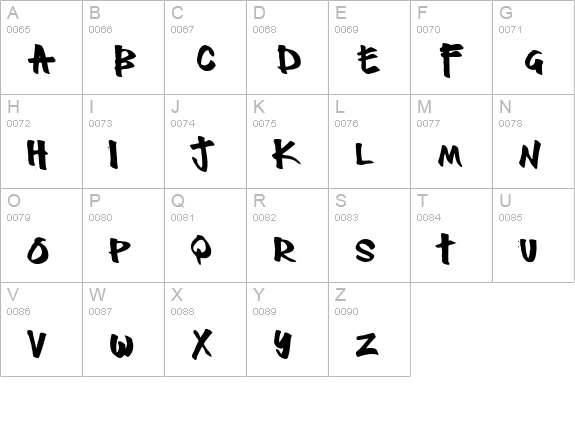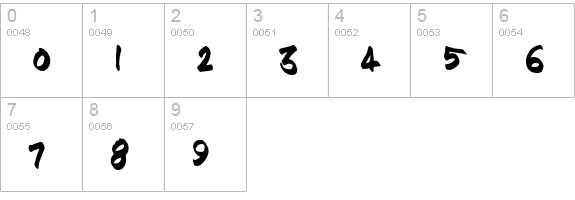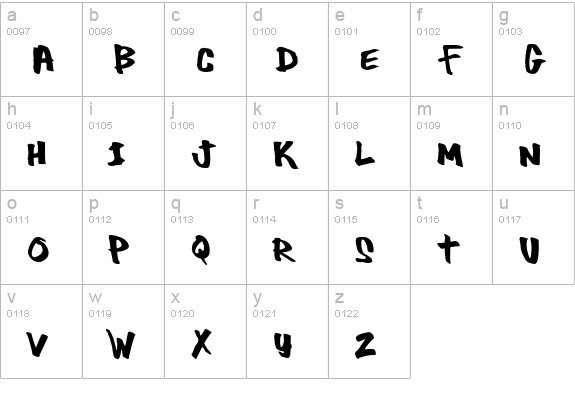
Thug Font is a bold and gritty typeface that exudes an edgy and rebellious vibe. With its sharp angles and jagged lines, this font is perfect for adding a touch of urban flair to your designs. Whether you're working on a streetwear brand, a music album cover, or a poster for a hip-hop event, Thug Font will make a powerful statement. What makes Thug Font even more appealing is that it is completely free. Yes, you read that right - this high-quality font is freely available to download at FontsMarket.com. Now you can add some street credibility to your projects without breaking the bank. Thug Font comes in a variety of weights and styles, allowing you to experiment and find the perfect fit for your design. From a bold and in-your-face look to a more subtle and refined approach, this versatile font has got you covered. Its sleek and modern design will captivate your audience and leave a lasting impression. So why wait? Head over to FontsMarket.com and grab your free download of Thug Font today. Unleash your creativity and give your designs a dose of urban attitude. Whether you're a graphic designer, a typographer, or simply someone who appreciates great fonts, Thug Font is a must-have in your collection. Get ready to make a statement and turn heads with this bold and striking typeface.